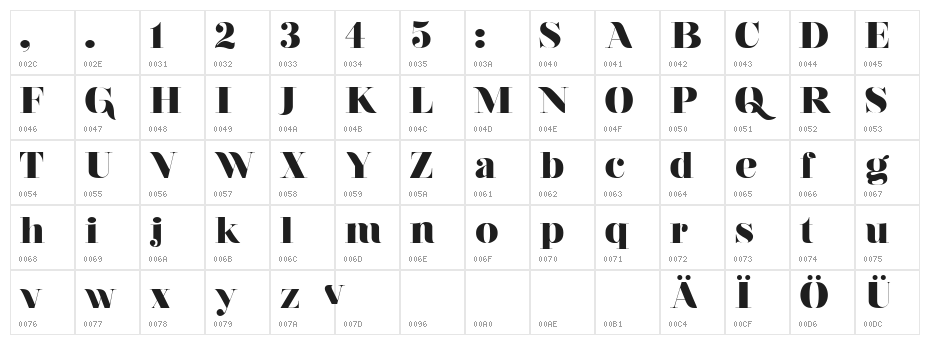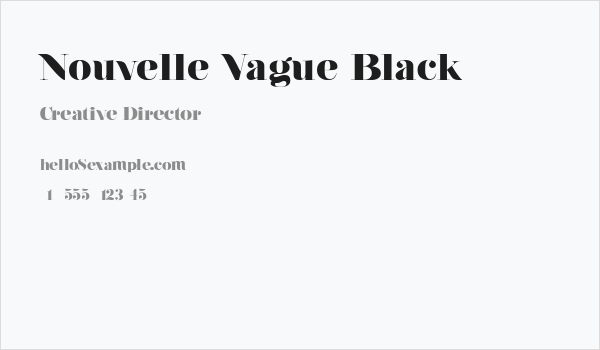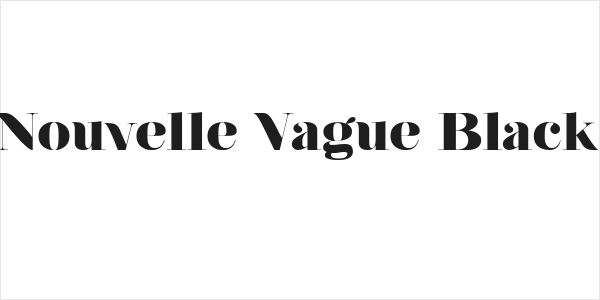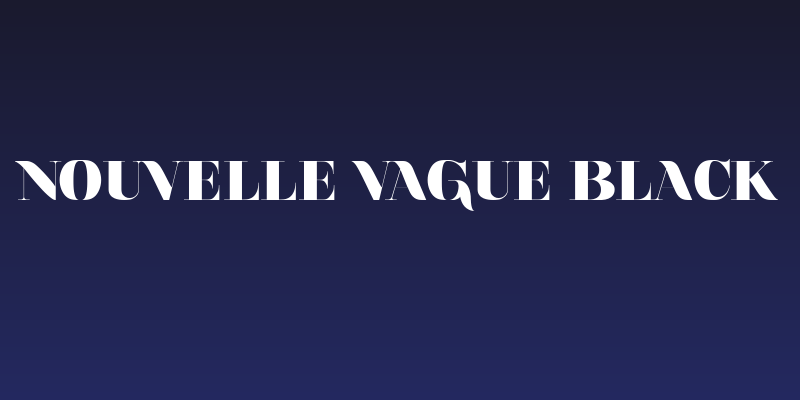
Nouvelle Vague Black Font
Nouvelle Vague Black Description
This font features a bold and striking design with high contrast between thick and thin strokes, creating a dramatic and elegant appearance. The uppercase letters are particularly distinctive, with sharp serifs and a modern flair. The lowercase letters maintain a consistent style, offering a cohesive look across different text sizes. The numerals are bold and easily readable, while the special characters complement the overall aesthetic. This font is ideal for making a strong visual impact, combining classic serif elements with a contemporary twist.